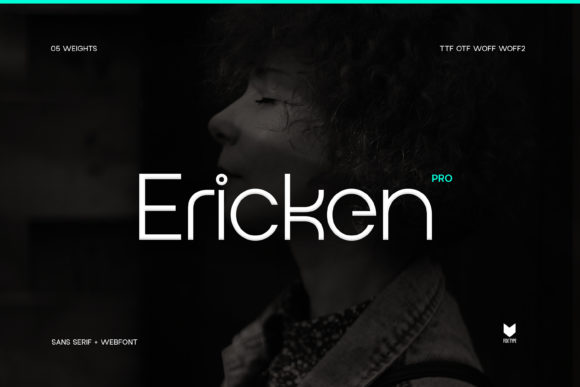
Introducing Ericken Font: The Ultimate Sans Serif for Creative Projects
Are you tired of using the same old fonts for your creative projects? Look no further than Ericken Font, a minimal and neat sans serif font that’s perfect for making your designs stand out. In this article, we’ll dive into the world of Ericken Font and explore its features, benefits, and uses.
What is Ericken Font?
Ericken Font is a modern sans serif font that’s designed to be clean, simple, and highly versatile. Its minimalistic approach makes it an excellent choice for a wide range of projects, from branding and advertising to digital media and publishing. With its sleek lines and uncluttered design, Ericken Font is sure to make your creative ideas shine.
Key Features of Ericken Font
- Minimal and neat design: Ericken Font boasts a clean and simple design that’s free from unnecessary clutter, making it perfect for modern designs.
- Sans serif style: The font’s sans serif style gives it a sleek and contemporary look that’s perfect for a wide range of projects.
- Highly versatile: Ericken Font can be used for everything from headings and titles to body text and captions.
- Easily readable: The font’s clear and simple design makes it easy to read, even at small sizes.
Benefits of Using Ericken Font
So why choose Ericken Font for your creative projects? Here are just a few benefits of using this amazing font:
- Boosts creativity: Ericken Font’s clean and simple design makes it easy to focus on your creative ideas, rather than getting bogged down in complicated typography.
- Enhances readability: The font’s clear and legible design ensures that your text is easy to read, even for audiences with visual impairments.
- Versatile and adaptable: Ericken Font can be used for a wide range of projects, from digital media to print materials.
- Time-saving: With Ericken Font, you can quickly and easily create professional-looking designs without spending hours on typography.
How to Use Ericken Font in Your Creative Projects
Now that we’ve explored the features and benefits of Ericken Font, let’s talk about how to use it in your creative projects. Here are a few ideas to get you started:
- Branding and advertising: Use Ericken Font to create bold and eye-catching logos, taglines, and ad copy.
- Digital media: Ericken Font is perfect for digital media, including social media graphics, blog posts, and website designs.
- Publishing: Use Ericken Font for book covers, magazine layouts, and other print materials.
- Presentations: Add Ericken Font to your presentations to make them more engaging and professional-looking.
Tips for Getting the Most Out of Ericken Font
Here are a few tips for getting the most out of Ericken Font:
- Experiment with different sizes and colors: Ericken Font looks great in a variety of sizes and colors, so don’t be afraid to experiment and find the perfect combination for your project.
- Pair it with other fonts: Ericken Font pairs well with a wide range of other fonts, so try combining it with other sans serifs or serif fonts to create visual interest.
- Use it consistently: To get the most out of Ericken Font, use it consistently throughout your project. This will help create a cohesive and professional-looking design.
In conclusion, Ericken Font is a versatile and highly effective sans serif font that’s perfect for a wide range of creative projects. Its clean and simple design makes it easy to read and adaptable to different contexts. Whether you’re a designer, marketer, or entrepreneur, Ericken Font is a great choice for making your designs stand out.
FAQs About Ericken Font
- What is Ericken Font?: Ericken Font is a minimal and neat sans serif font designed for creative projects.